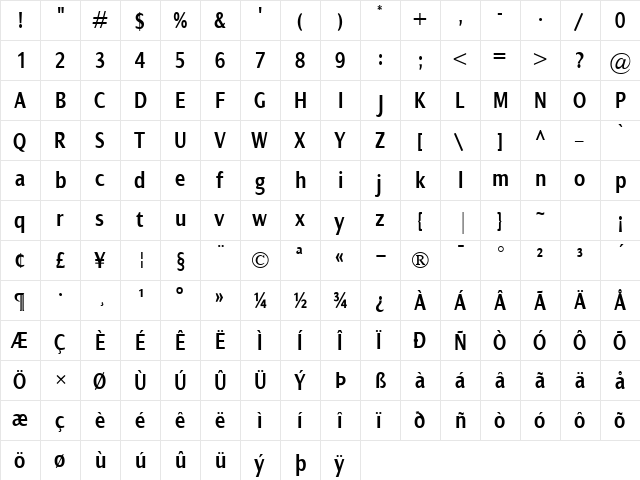
Dialog Cond SemiBold Regular
Design Context for Dialog Cond SemiBold Typeface
Dialog Cond SemiBold is a composed and adaptable typeface that performs quietly and consistently across a wide range of design contexts. Its bold stroke weight gives it real presence on the page. The condensed width makes it efficient for tight spaces without sacrificing legibility.